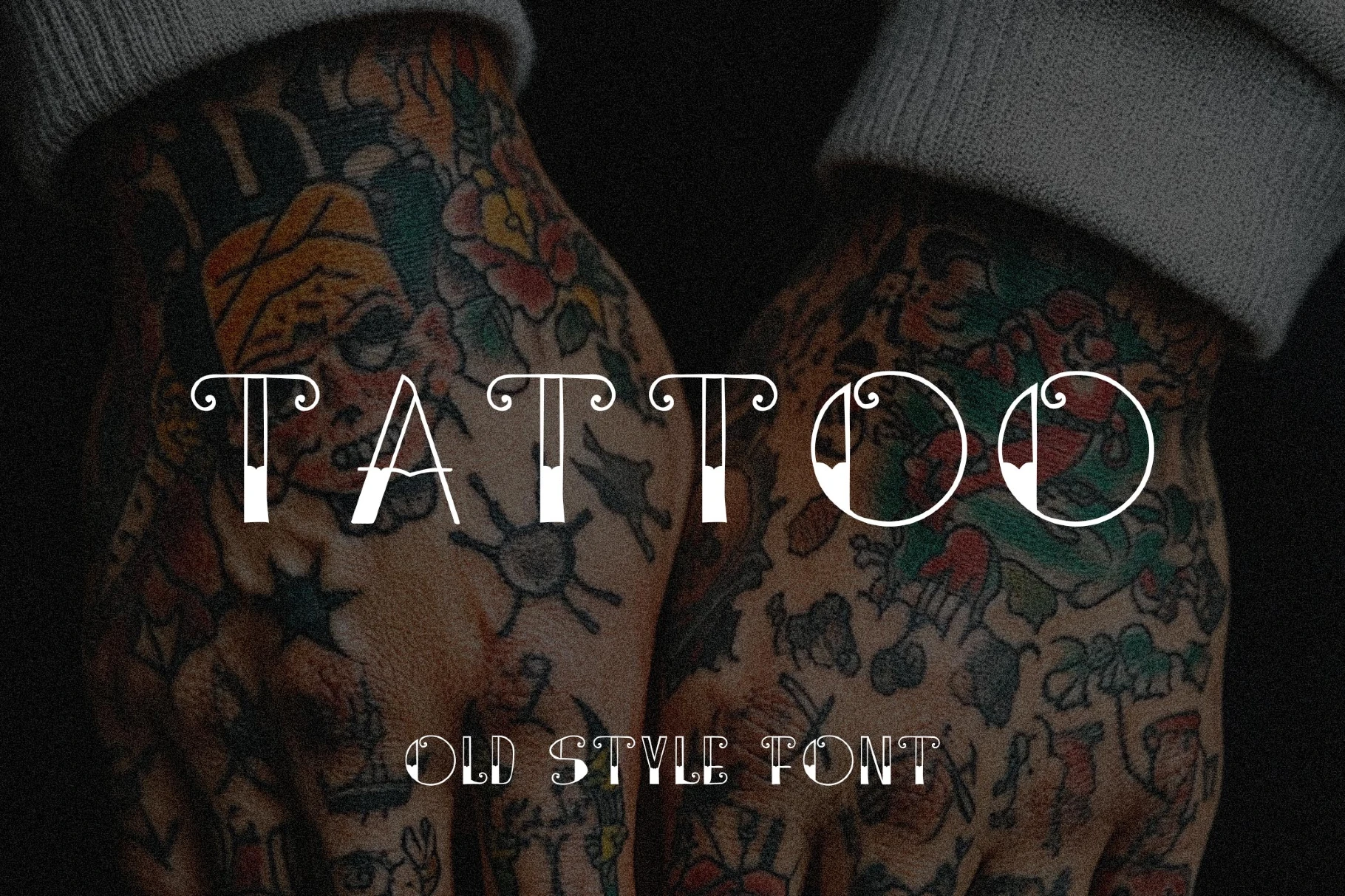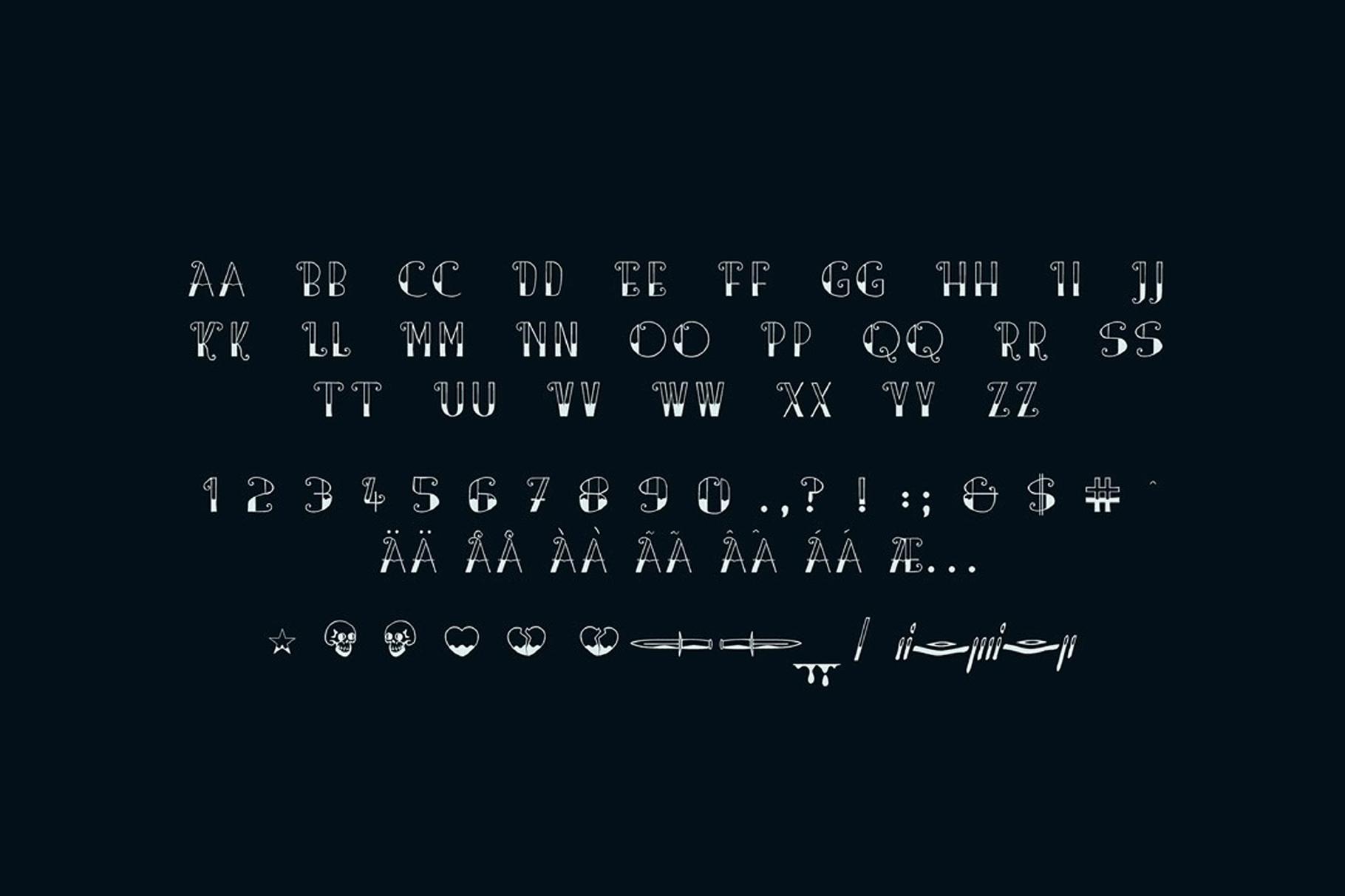
Tattoo U Font
Tattoo U is a 70s tattoo-parlor display with split fills, curled terminals, and inky drip details. It's got round counters and tall verticals, plus swooping ball ends for a flash-sheet wink.
Use it for flash-day posters, parlor signage, biker-jacket patches, rockabilly album covers, hot-rod event flyers, soda-shop menus, roller-derby wordmarks, vintage café branding, zine mastheads, and merch hangtags.